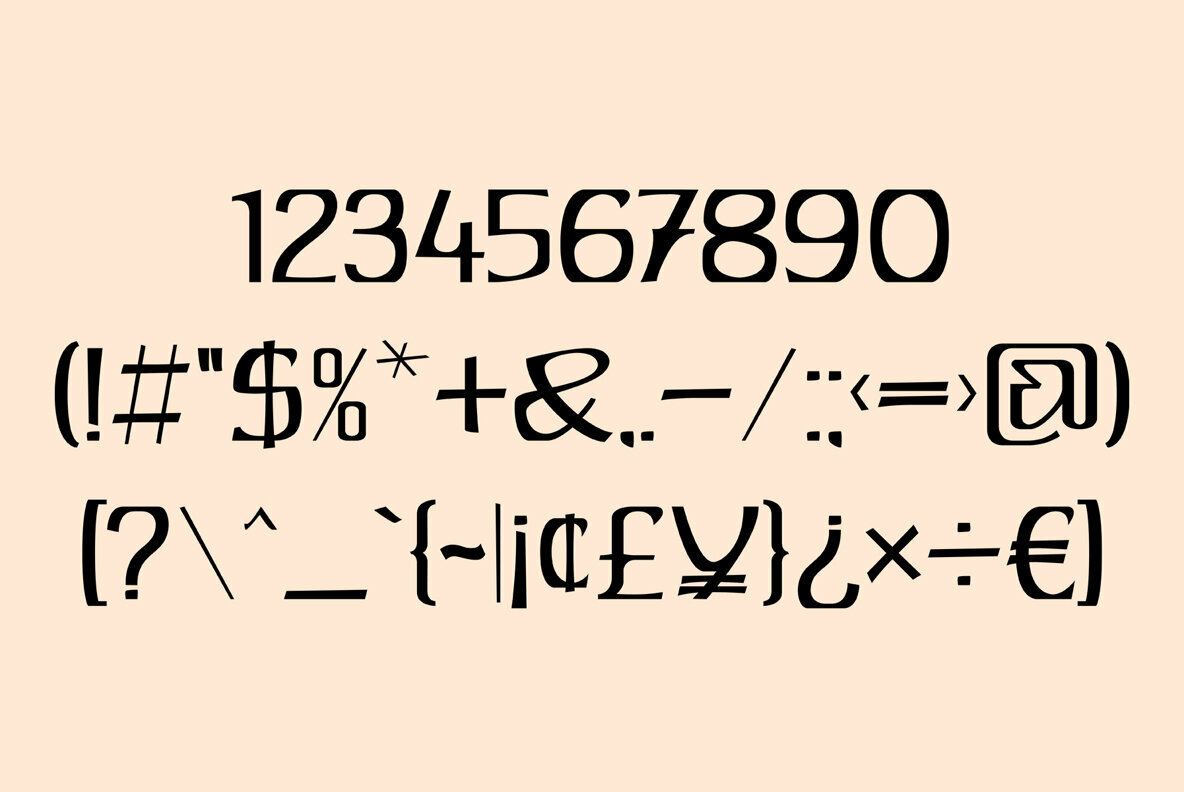
Roxibelle Font
Roxibelle
Roxibelle is a modern classic display font and is my revision of 60s typeface named Rustikalis. Font is irregulary shaped and is a mix between sans, medieval and psychedelic styles. Roxibelle is great for logos, labels, headings, brandings, socials and more. Enjoy!